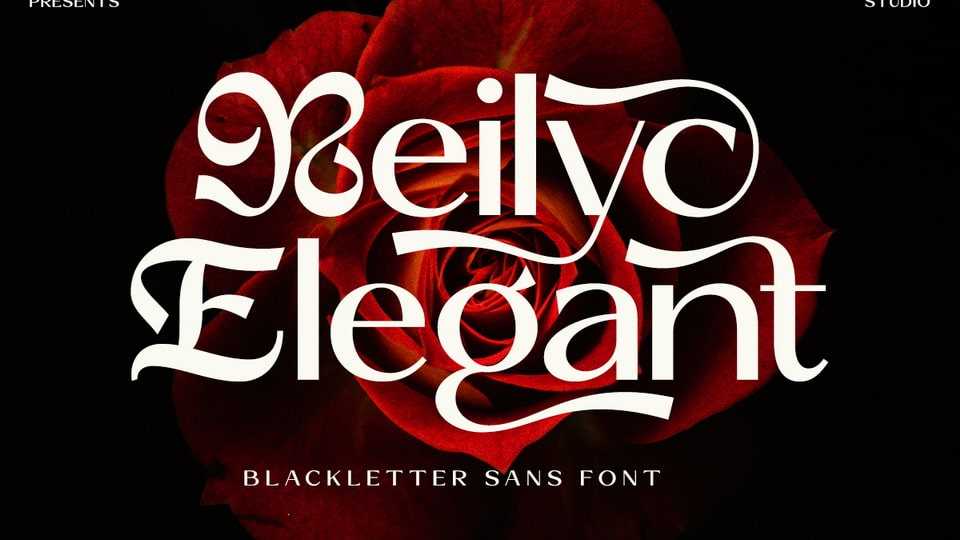
Download Reilyc Elegant font, a striking contemporary blackletter serif typeface that merges the classic sophistication of traditional blackletter styling with modern legibility.